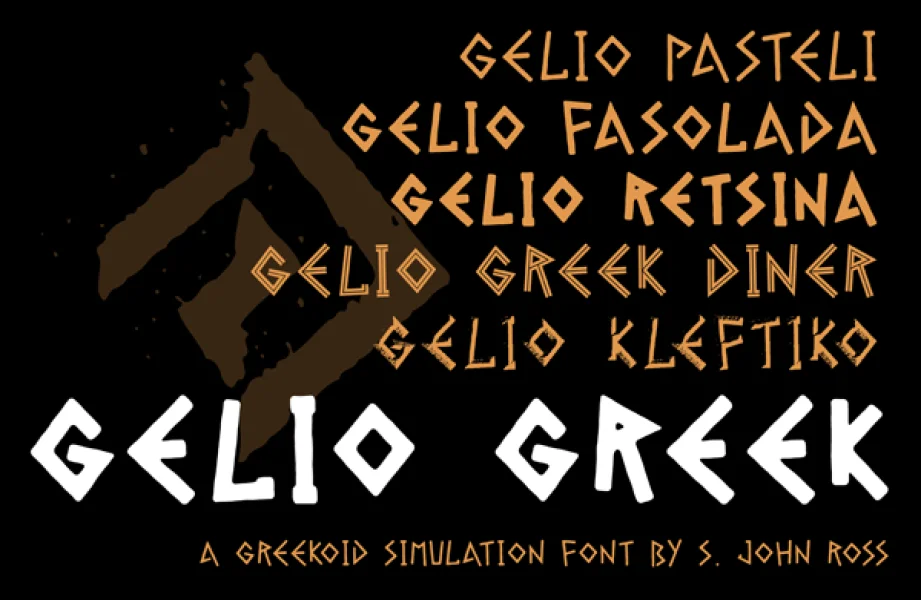
When I released Gelio Greek Diner as the "pilot" member of the "Gelio Greek" family, the idea was that I'd trickle out some more styles one at a time. It was a reasonable plan ... but then I remembered I'm really bad at things like "releasing stuff on a schedule." In the spirit of making sure the finished members of the family don't languish unused on my hard drive, I've added four new styles to this release (Gelio Fasolada, Gelio Kleftiko, Gelio Pasteli and Gelio Retsina). Pasteli, Fasolada and Retsina are in many ways the simplest "core" versions of the font: warm and slightly irregular master-glyphs in three weights. Gelio Kleftiko is a "roughly engraved" variant (compatible in both texture and light-angle with other engraved Cumberland fonts). There's more Gelio on the horizon (no bets on when), so keep an eye peeled for future releases.
Gelio is an all-caps font complete with a full set of alphabetical alternates. Mix and match! Gelio is Greek for "laughter," and the family's figures are suited to its name: casual, canted this way and that, sometimes unrelated in height, and strung along a centerline rather than built upward from a baseline. It's randomly playful in a way that required an unexpected amount of planning! Since the font has an awkward, asses-and-elbows nature (and because it's a dual set of interlocking caps) it required more extensive hand-kerning than any other font in the Cumberland library. Now I'm all tired out and craving souvlaki ... but I'm real happy with the font and hope you are, too.